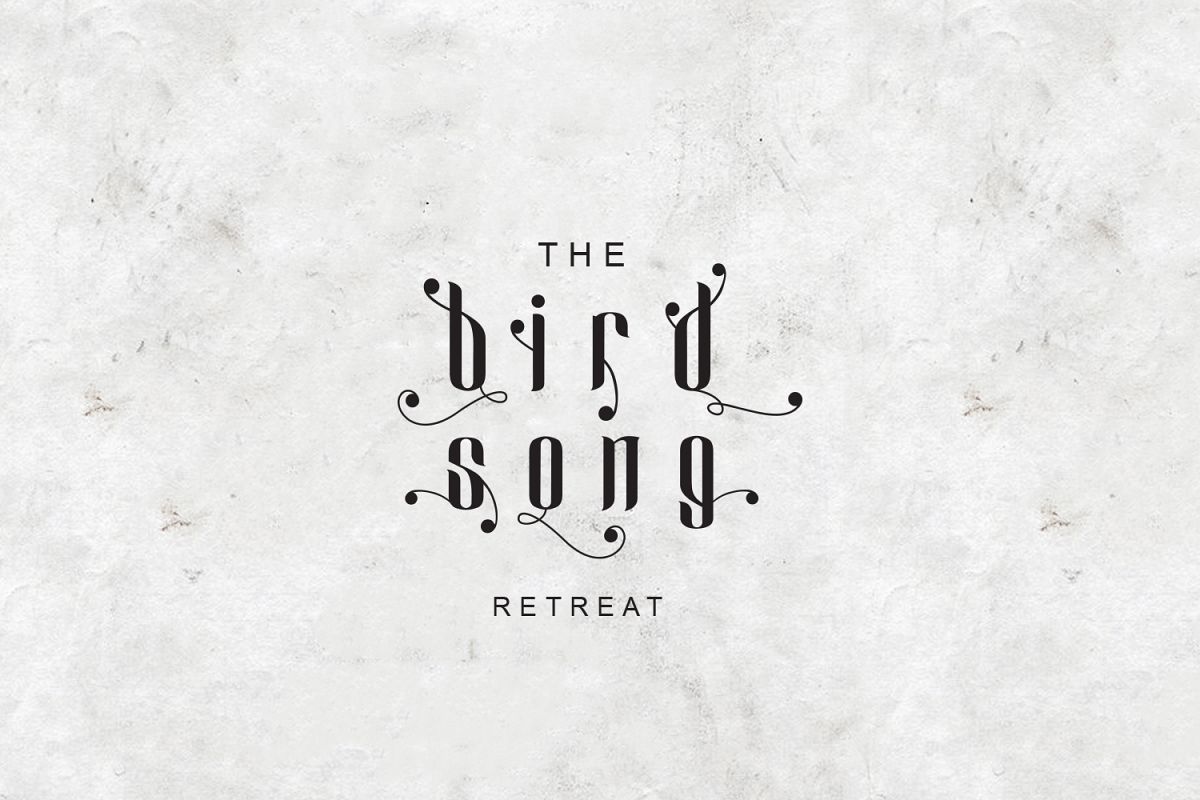
Cameo Sweet Gothic
This gothic font gives a new nuance with soft curves that make this font look sweet but still gothic
perfect for your design, it has 14 stylistic set for you to design every words to match your design
Let's complete your collection of Gothic fonts with Cameo Sweet Gothic.